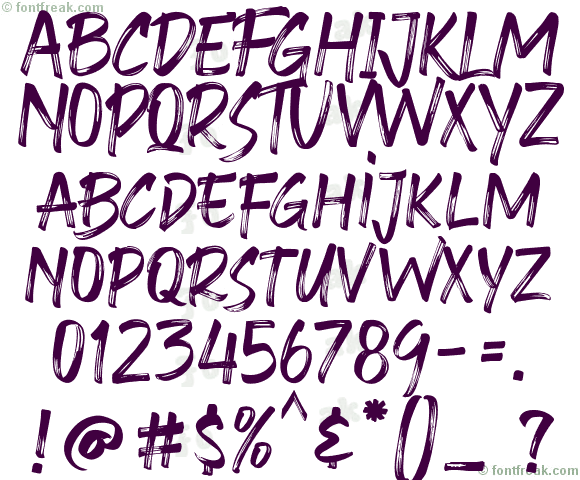
About SlouchyBrush-Regular
SlouchyBrush-Regular, created by 50Fox Studio, is a captivating handwritten font that embodies a casual yet artistic vibe. This font falls within the script category, featuring fluid, brush-like strokes that evoke a sense of spontaneity and creativity. Its design showcases a medium stroke weight with subtle contrast, allowing for a playful yet legible appearance. The spacing is well-balanced, ensuring that each letter flows seamlessly while maintaining clarity. Decorative elements, such as the slightly irregular baseline and varied stroke thickness, add to its charm and uniqueness.
This font is particularly well-suited for a variety of creative applications. It shines in wedding invitations, where its whimsical style can lend a personal touch to the day’s celebrations. Additionally, SlouchyBrush-Regular works wonderfully for restaurant menus, giving a warm and inviting feel that can enhance the dining experience. Graphic designers may find it ideal for branding projects, as it conveys a friendly and approachable identity. Content creators can also leverage this font in social media graphics and promotional materials, making their messages stand out with a distinctive flair.
What truly sets SlouchyBrush-Regular apart is its ability to blend artistry with practicality. The font captures attention while remaining functional, making it a go-to choice for those seeking to infuse their projects with a touch of personality. Whether used for formal invitations or playful posters, this font’s charm and character are sure to leave a lasting impression. Get your SlouchyBrush-Regular font free download today and start creating!